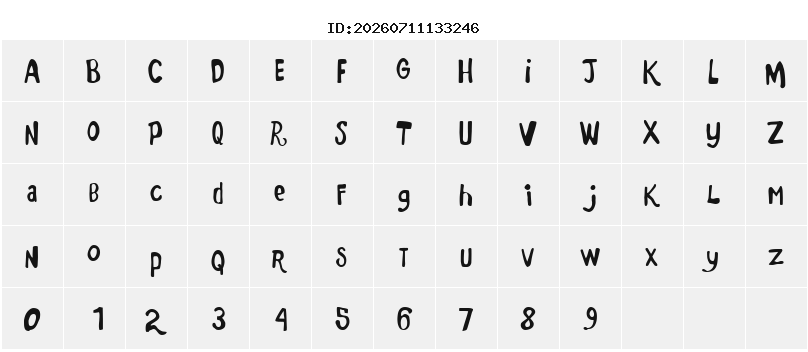
Marker Monkey FW Preview
• Font Name: Marker Monkey FW
• Full Font Name: Marker Monkey FW
About Marker Monkey FW.ttf
Marker Monkey FW.ttf is a modern, elegant sans-serif font designed for ultimate readability and visual harmony. Perfect for branding, headlines, web design, and print materials.